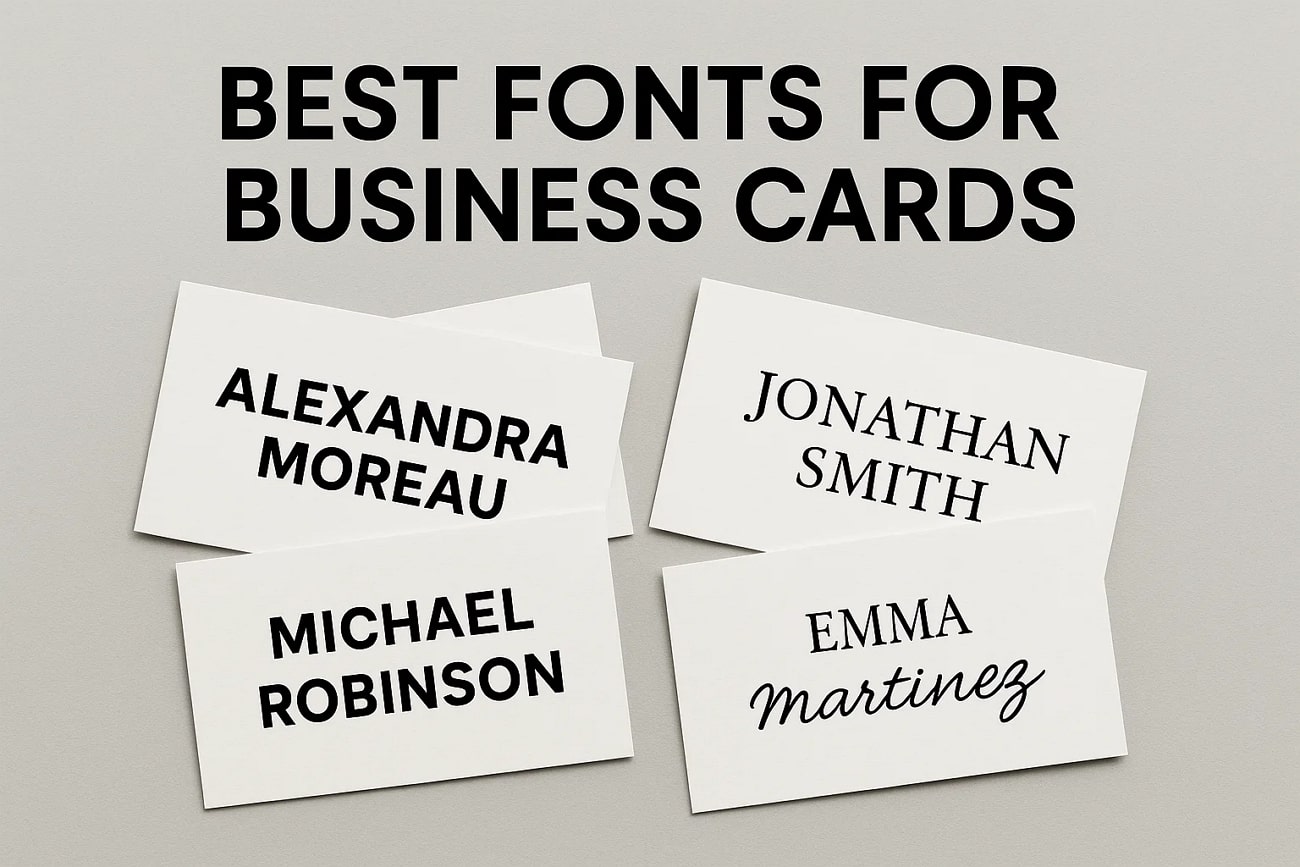
Top Picks for You: The Best Fonts for Business Cards in 2026
Establishing brand credibility requires selecting clean, uniform typefaces over complex designs, which you can format and export as digital or print-ready business cards using Wondershare Filmora Desktop 2025 or its iOS/Android app.
● Select TT Firs Neue (supports 235 languages) or TT Hoves Pro (supports 200 languages) for global corporate branding, while using CS Shelton (supports 87 languages) for bold sans-serif layouts or Black Caviar for authentic SVG brush scripts.
While attending a networking event at a business conference, major industry stakeholders and clients exchange business cards. Potential clients are impressed with a lasting impression of these cards with enhanced readability and style. They are critical in boosting your brand name and image.
Nowadays, it is all about networking, and it only takes a few seconds to make an initial impression which could be boosted by a perfect font. Business card fonts do not merely involve aesthetics and colors, but convey professionalism, reliability and brand sophistication. This guide contains the best fonts for business cards with which you can be sure that your brand will be recognized among others.
Part 1. How Font Choice Reflects Your Brand Credibility
As a small businessman, you want to grow your network and make new clients. The font on business cards shapes the perception of your brand to potential leads. The right typeface not only ensures clarity but also serves as a powerful networking tool for reinforcing your brand's reputation. The below-mentioned characteristics are kept in mind when choosing business card font styles for your brand visibility:
1. A clear and distinct letterforms ensure every character is noticeable and not overcrowded or spread out.
2. The uniformity in characters and consistency of design traits, such as colour and texture of a font, enhance marketing strategy.
3. Serif font offers simplicity, and script displays creativity in the design, apt for the one who reflects your brand's personality.
4. Complex fonts and over-decorative designs are avoided for conveying the primary information of your brand.
5. It supports multiple languages and is well-designed with clear outlines for use in digital and print media.
Part 2. The Best Fonts for Business Cards: 12 Top Picks For You
Here are the top 12 business card fonts for your brand image that enhance your visibility:
1. Brinova
This prominent typeface with a modern sans-serif design creates a balance between simplicity and modern style. Due to its concise and versatile look, this font type ensures high readability and better visibility across different sizes and formats. Moreover, due to its contemporary look, it works well among editorials, media branding, and business card designs.
2. Gendra
For a simple style and unique look, Gendra typeface is highly versatile for use in creative and practical applications. It has smooth curves and geometric letterforms that give it a chic and refined advantage for branding communication. This business card font type is multilingual, ensuring visibility with its balanced proportions of letters.
3. CS Shelton
It has a bold, straight style sans-serif typeface that highlights power and stability. The thick letterforms ensure that the text stands out and make it ideal for use in logos, headlines, and creative card layouts. It supports 87 languages, has a versatile approach, and is perfect for print and digital media branding.
Conclusion
In conclusion, it is notable that the best fonts for business cards not only reflect the brand's identity but also increase client attention. This guide gives thorough information on how to create outstanding business profiles and visiting cards through Filmora's extensive text editing features and intuitive editing tools. Therefore, choosing the right font style gives a lasting impression on your client and helps you boost your professional networking.